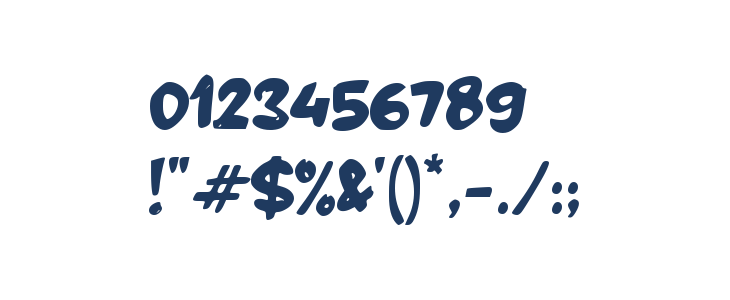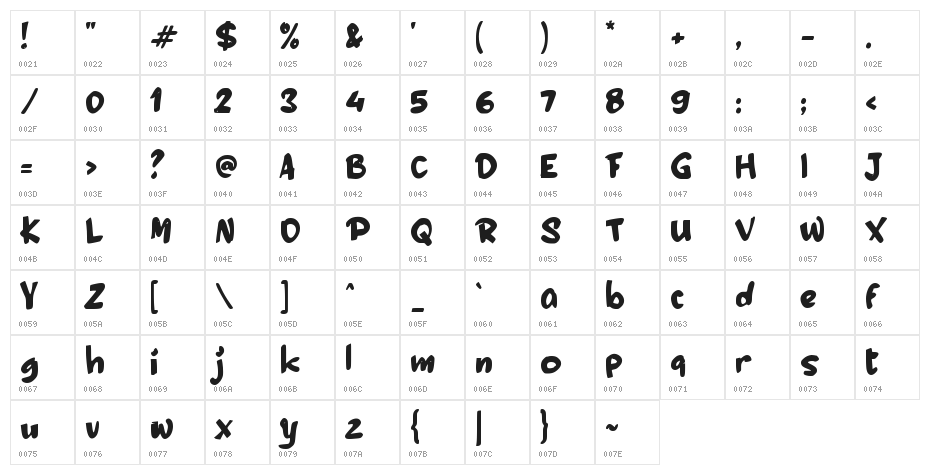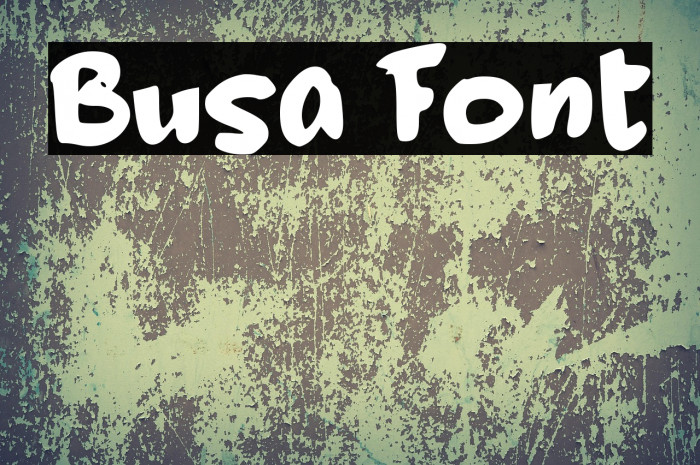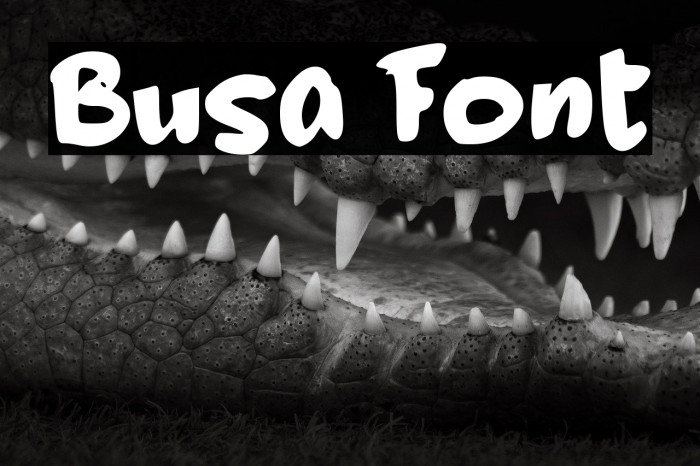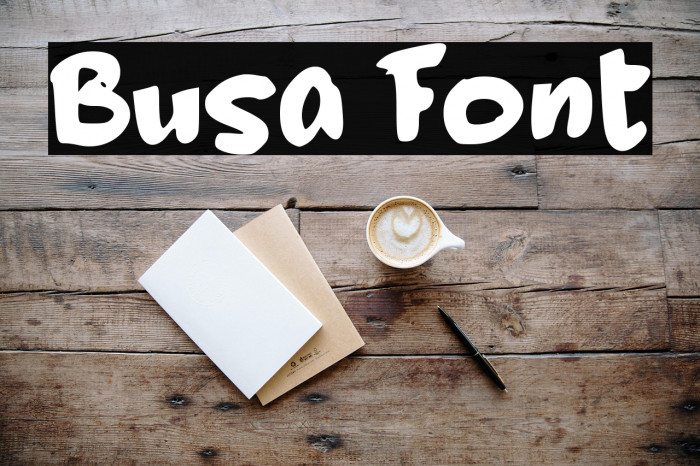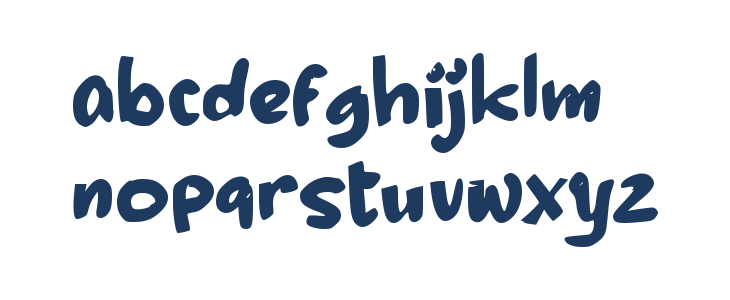
Busa Font
Busa Description
This font features a bold and playful style, characterized by its thick, rounded strokes and slightly irregular shapes. The letters have a hand-drawn appearance, giving them a casual and friendly vibe. The uppercase and lowercase letters maintain a consistent weight, contributing to a cohesive look. The numbers and special characters follow the same design principles, ensuring uniformity across all glyphs. The font's overall aesthetic is lively and energetic, making it suitable for projects that require a touch of whimsy and fun.
| Overall Style | Playful |
| Use Case | Logos, Headlines, Posters |
| Proposed Projects | Ideal for children's books, playful branding, casual invitations, and creative posters. |